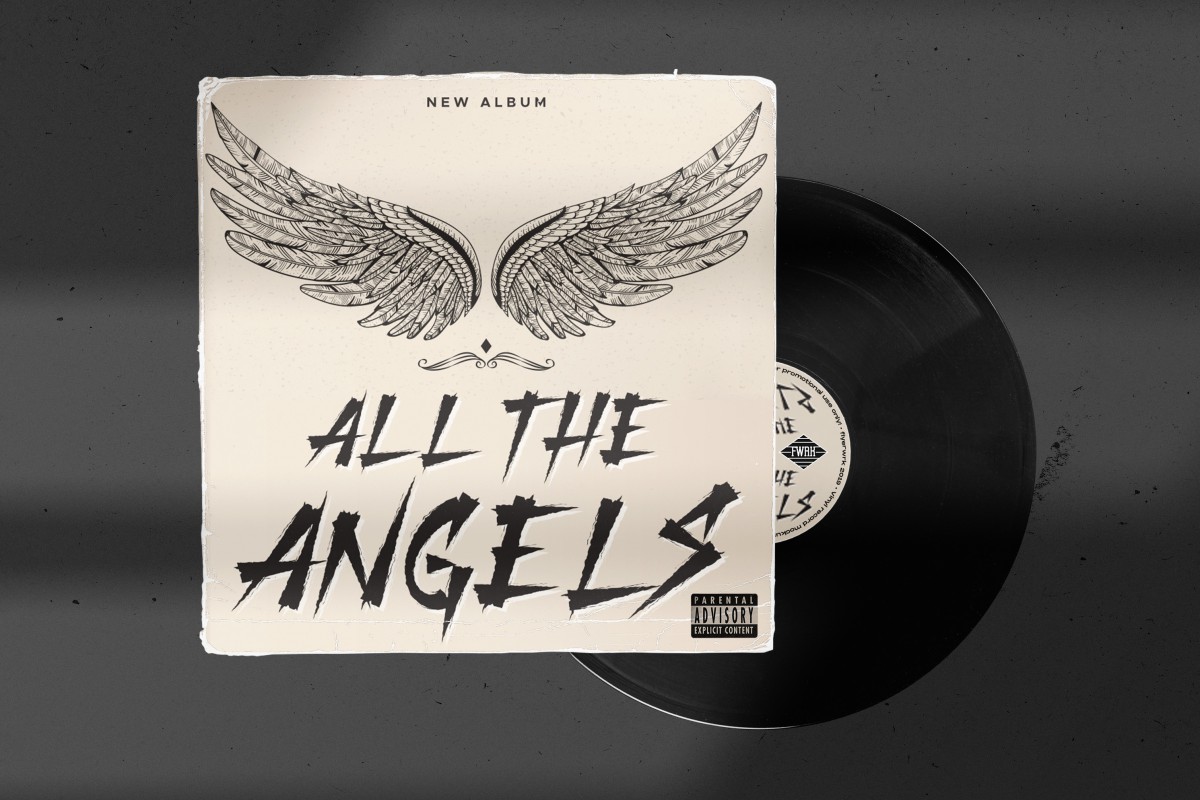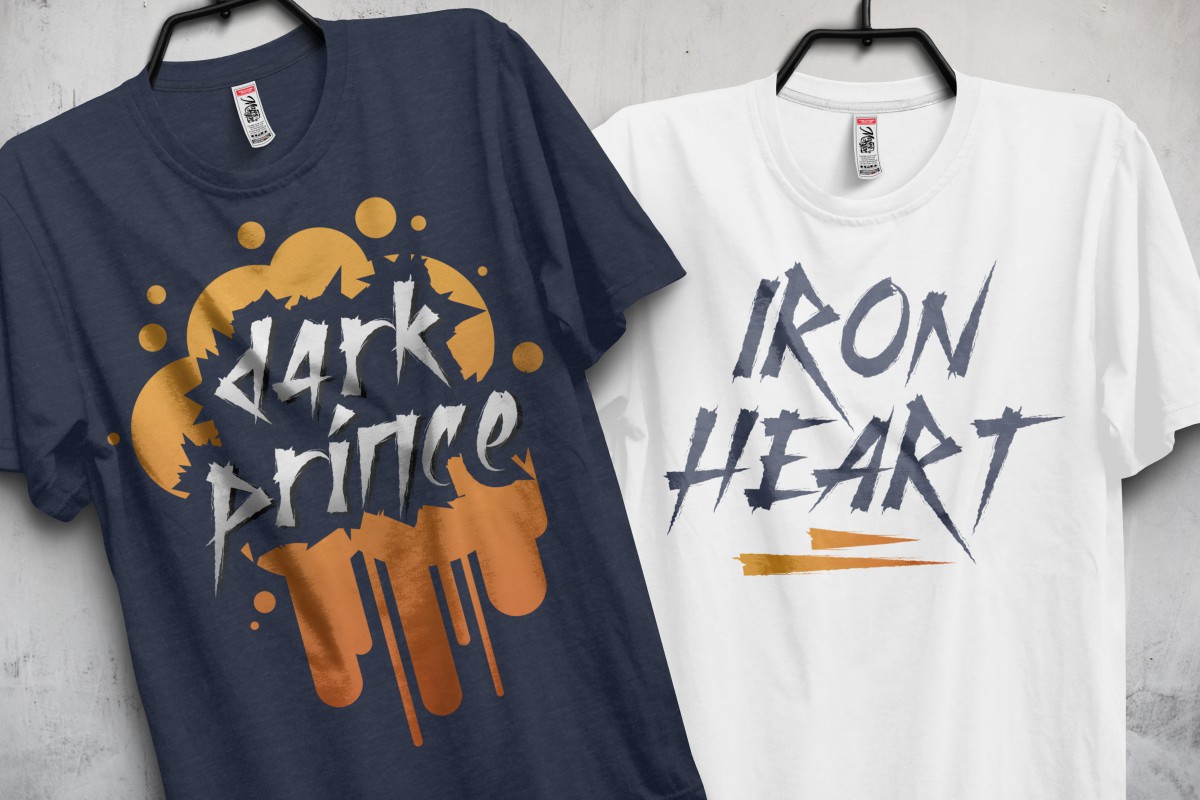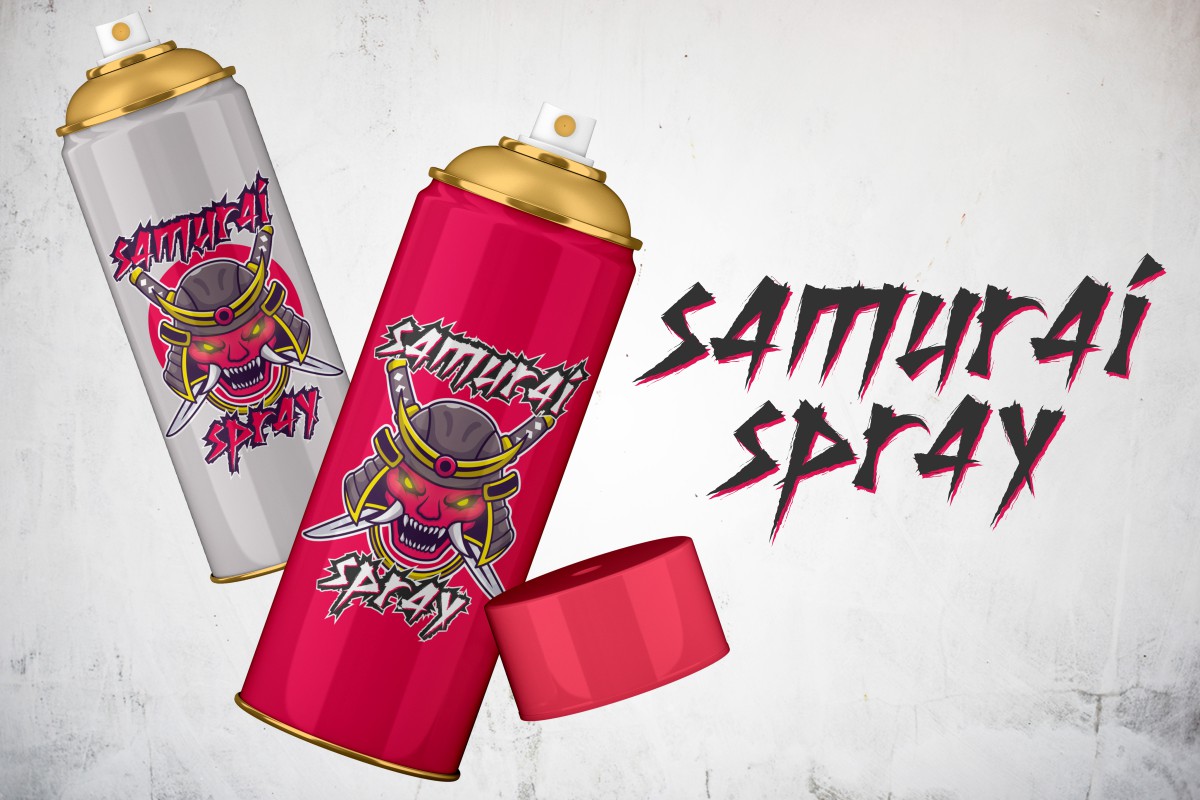
Dark Falcon Font
Dark Falcon Display Font
It’s a rough mysterious brush font with scary horror theme style. The font was inspired from several movie posters and games. Exclusively made in 2021 by VinType Studio, this font will impress anyone with its dark and strong style. The font will be awesome for any industries or projects including games, movies, sports, festival, kitchen or home products, and many more